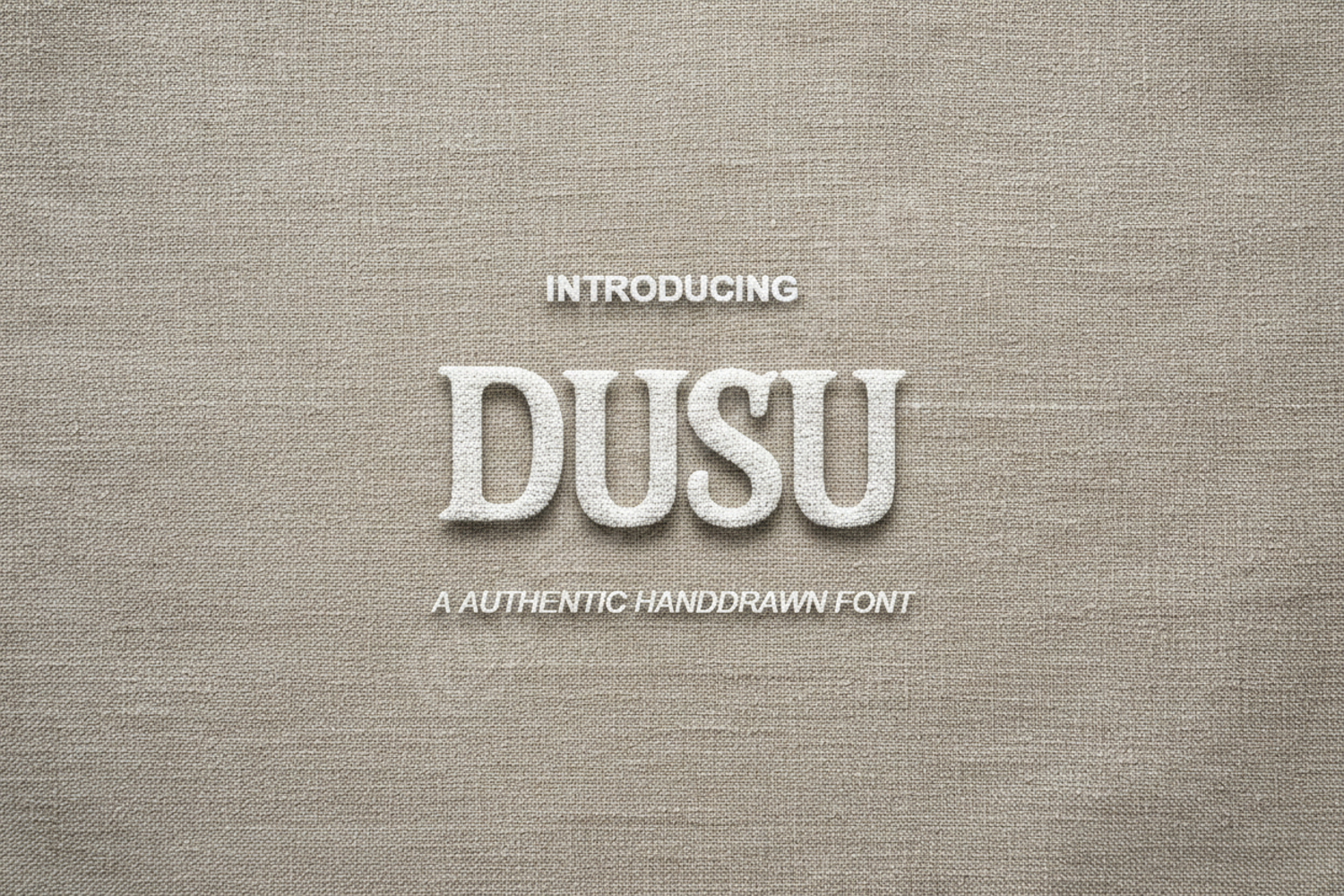
Dusu - Modern Minimalist Sans Serif Font
Dusu
Dusu is a sophisticated and versatile sans serif font designed for those who value clarity and contemporary elegance. With its balanced proportions and clean lines, Dusu brings a touch of premium quality to any design project, ensuring your message is delivered with style and precision.
- Branding and Visual Identity
- Professional Editorial Layouts
- Modern Logo Design
- High-End Social Media Graphics
- Minimalist Product Packaging
- Corporate Presentations
- Sleek Website Headers